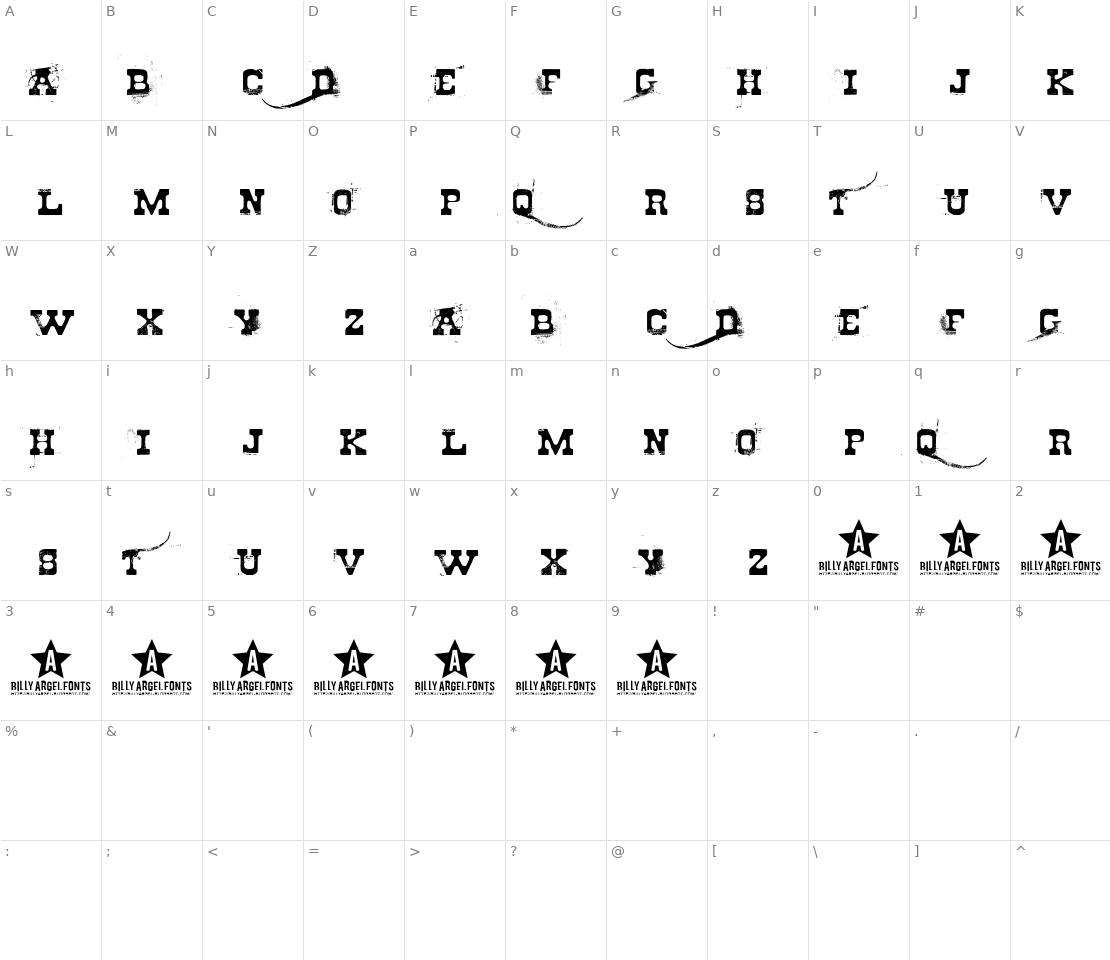
Cheap Stealer
Cheap Stealer is a heavy, uppercase display face from Billy Argel with rough, worn-down letterforms that look like they've been peeled off an old brick wall. The bold strokes hold up despite the heavy distressing, keeping things legible even as the edges crumble and flake. Built for posters, gig flyers, and grungy headline work where you want type that feels battered but still hits hard.